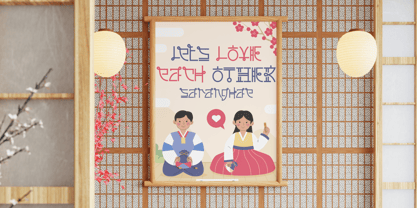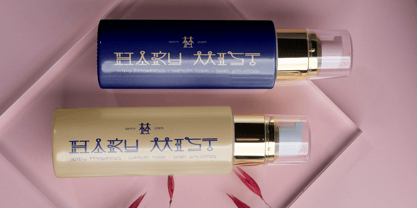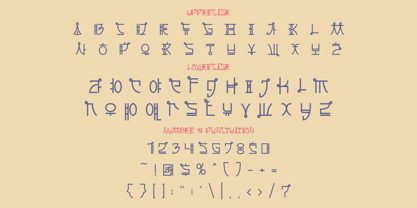
Drama Lines
von Shanaf
Die Schriftfamilie Drama Lines wurde von Yesie Erma Yunita entworfen und von Shanaf veröffentlicht. Drama Lines enthält 2 Stile und Familienpaketoptionen.
Drama Lines – Korean Font is a stylish typeface inspired by the elegance of traditional Korean aesthetics combined with modern minimalism. The characters are designed with tall structures, geometric bases, and decorative loops at the terminals, giving a harmonious blend of contemporary Asian artistry and futuristic style. The font reflects the rhythm of Korean calligraphy but with a digital foreign-look twist, making it versatile for creative design. Its unique form ensures instant recognition and delivers a distinct cultural identity to every project.
Perfect for branding, posters, book covers, packaging, movie titles, event invitations, and K-pop inspired designs, Drama Lines balances decorative flair with legibility. The font layout is expressive, playful, and ideal for both headline and artistic compositions. Whether used for logos, magazines, or themed products, Drama Lines transforms ordinary text into visually captivating design with authentic cultural impact. Designers can explore its potential across various mediums while maintaining readability and uniqueness.
Designer: Yesie Erma Yunita
Herausgeber: Shanaf
Foundry: Shanaf
Eigentümer des Designs: Shanaf